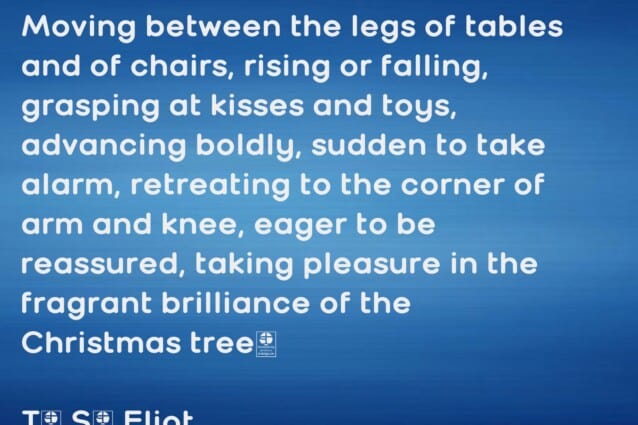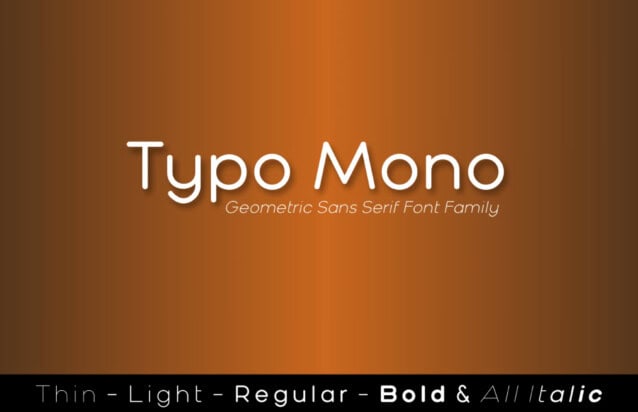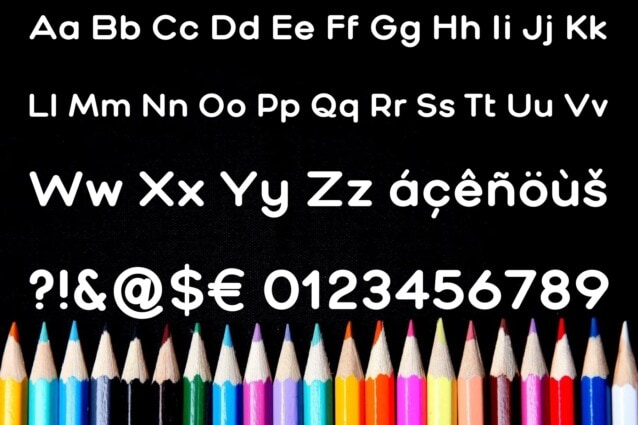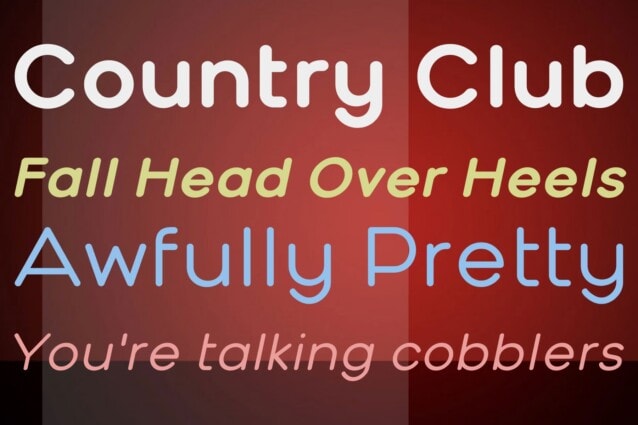
Typo Mono Font Family
Typo Mono Font Family is a sans serif display family inspired by advertisements of the 1920s and 30s. This style of lettering was usually featured in subheadings and slogans one would find in print during this era. When used as subhead text it’s clean, highly legible, and won’t steal the spotlight from the centerpiece of your project. Use it for signage, a family friendly logo, comics, or a classic looking poster.